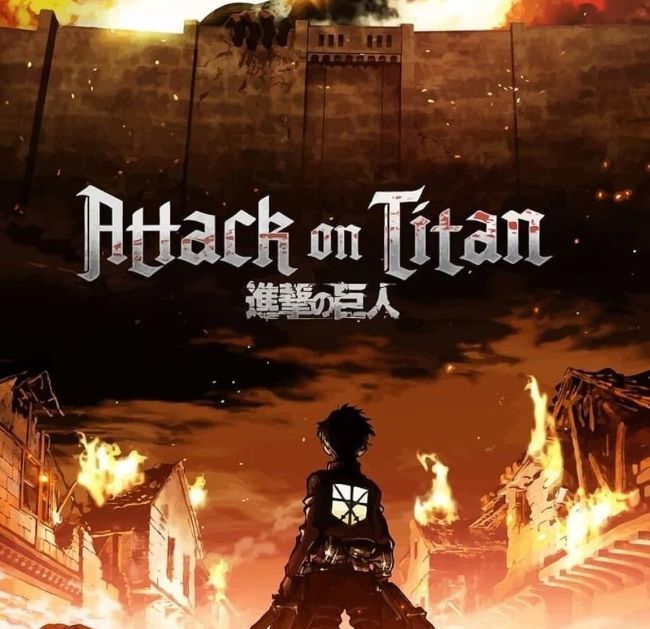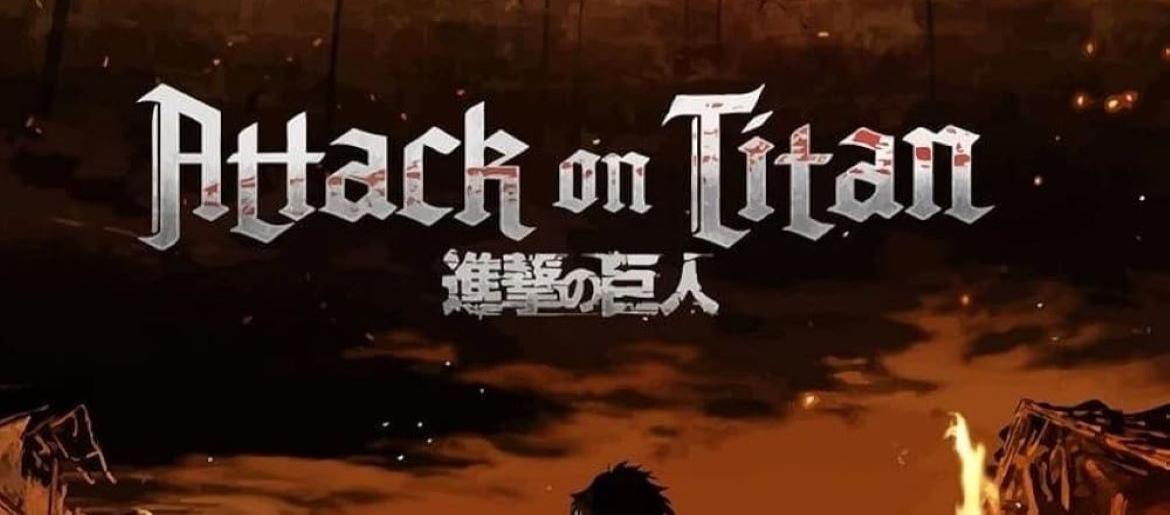
Attack on Titan Font
The Attack on Titan font is bold, sharp, and dramatic—perfectly embodying the intensity of the anime. Its strong serif lettering, often paired with distressed edges and dark tones, creates a sense of urgency and danger that mirrors humanity’s desperate fight for survival. The Attack on Titan font carries a militaristic, battle-worn style that instantly connects to the themes of war, sacrifice, and resilience within the series. It’s a typeface that feels powerful, commanding attention just like the story itself.
Fans and creators often use the Attack on Titan font to capture that same epic, high-stakes atmosphere in posters, fan art, or themed designs. Its dramatic flair makes it a go-to choice for projects that need to evoke strength, conflict, or a gritty fantasy edge. The Attack on Titan font is more than just typography—it’s a reflection of the show’s larger-than-life tone.